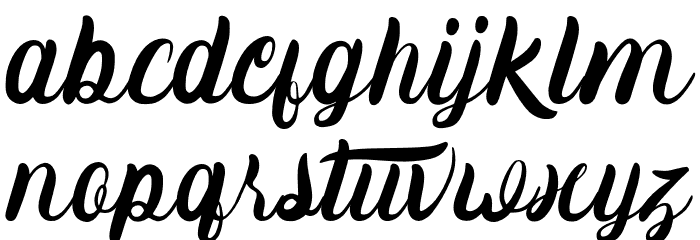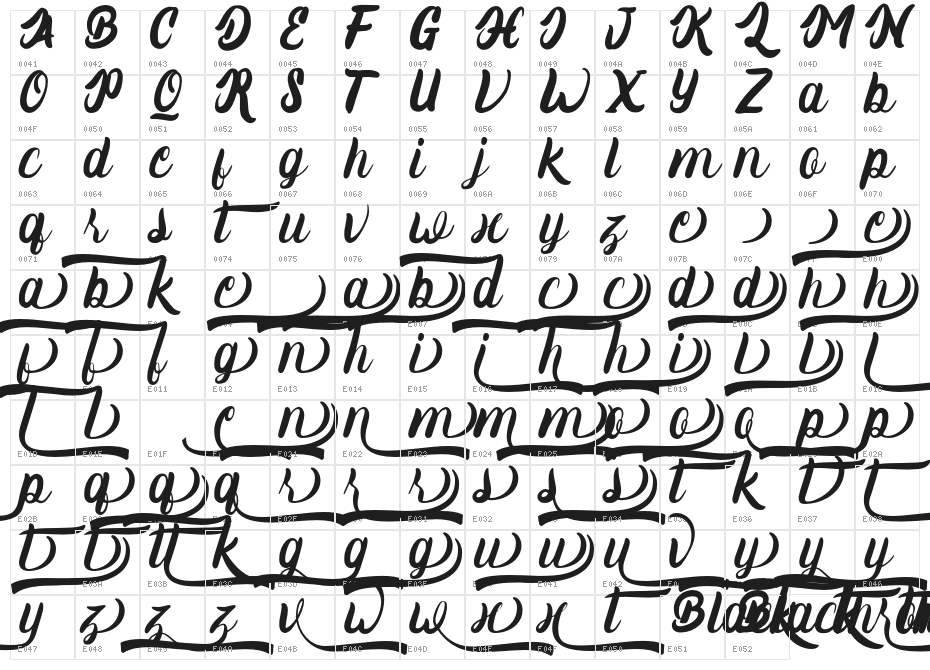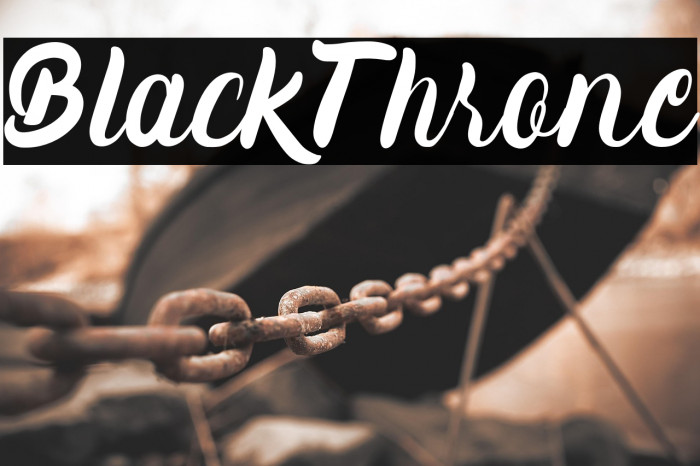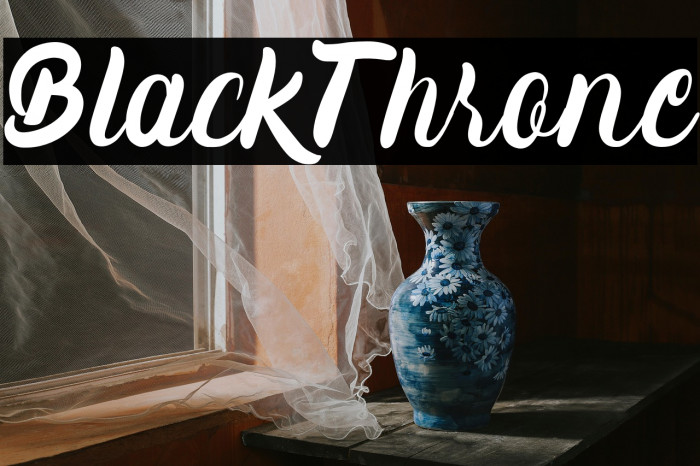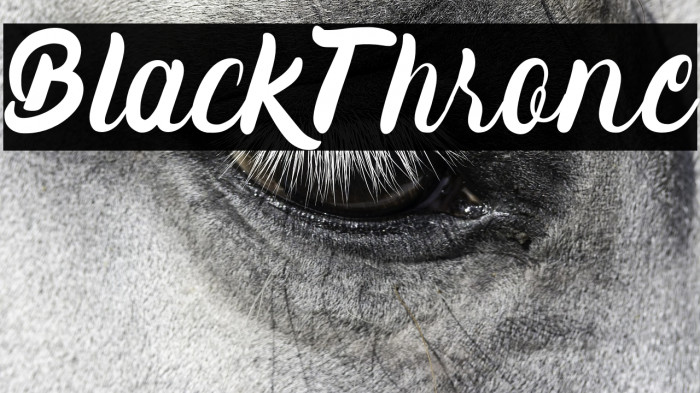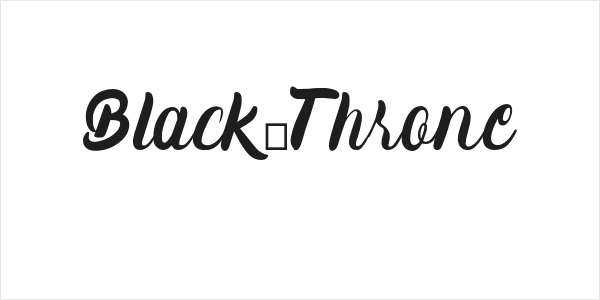
Black_Throne Font
This font features a bold and expressive script style, characterized by its flowing, cursive letterforms that convey a sense of elegance and dynamism. The uppercase letters are particularly striking, with sweeping curves and dramatic flourishes that add a touch of sophistication. The lowercase letters maintain a consistent style, with smooth connections between characters that enhance readability while preserving the font's artistic flair. The overall design is both modern and timeless, making it suitable for a variety of creative applications.
A bold, expressive script font with elegant, flowing letterforms.